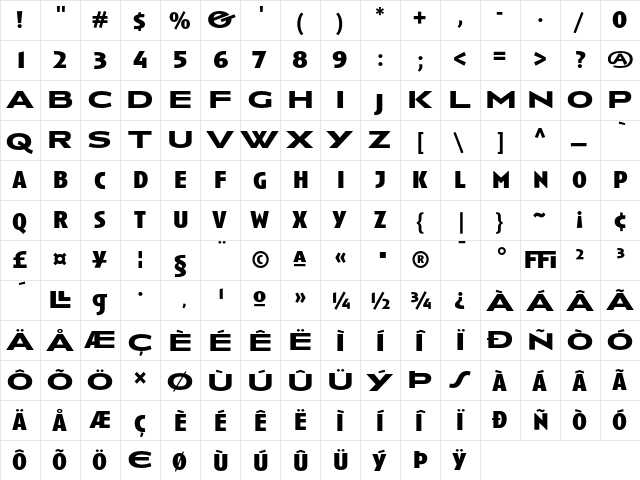
Anisette Bold
Design Context for Anisette Typeface
Anisette offers clean, dependable letterforms without strong stylistic allegiance, making it a practical choice for designers who need flexibility. The heavy weight commands attention and anchors typographic hierarchies.